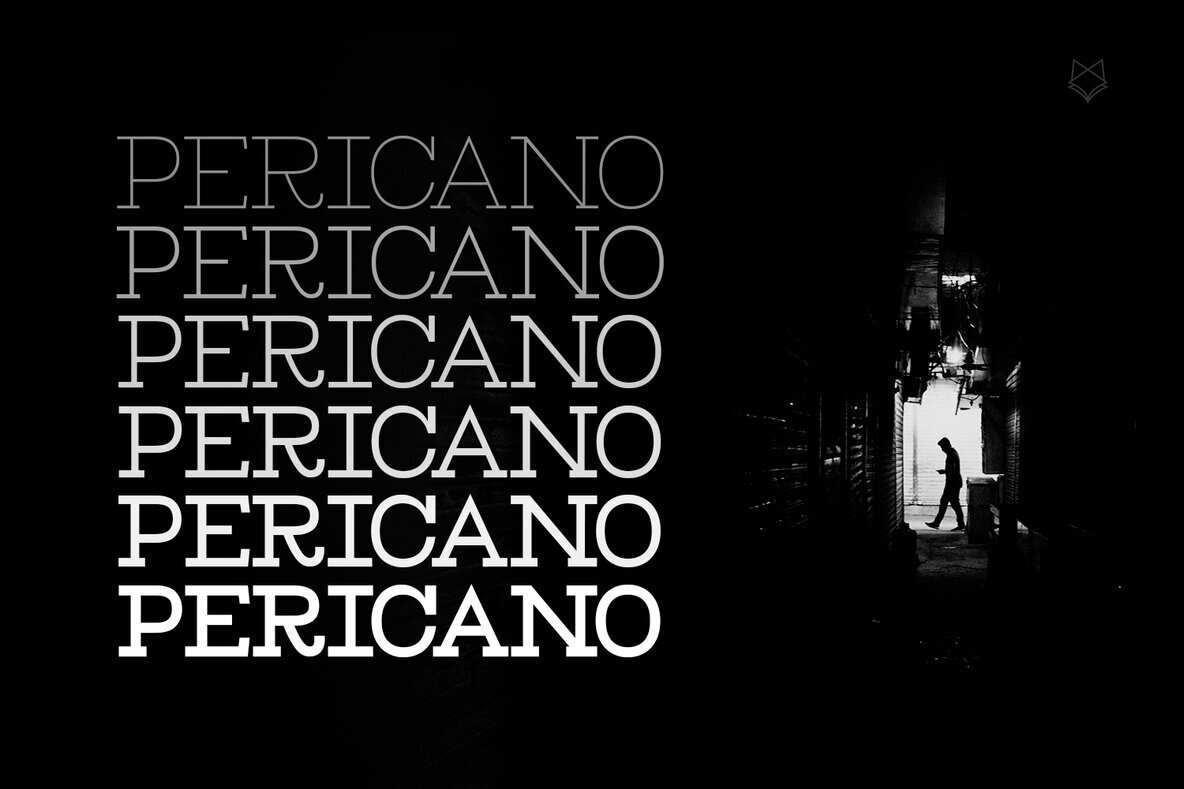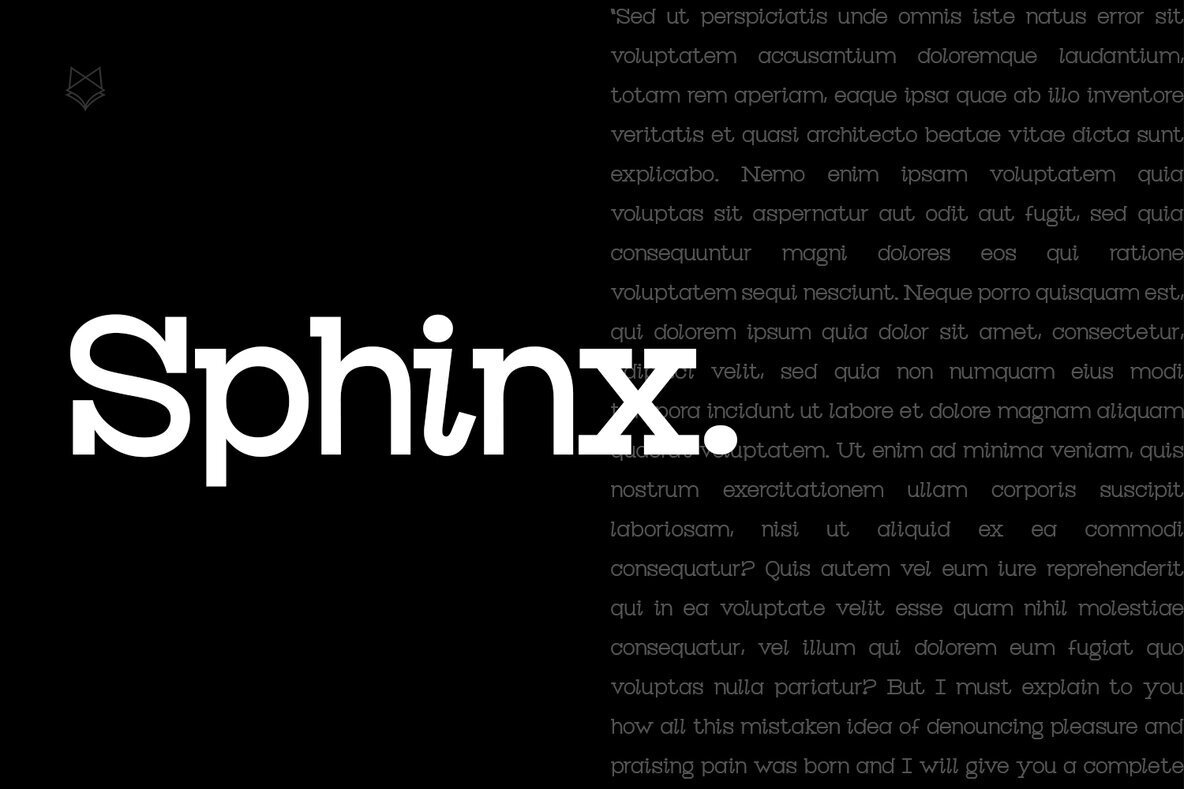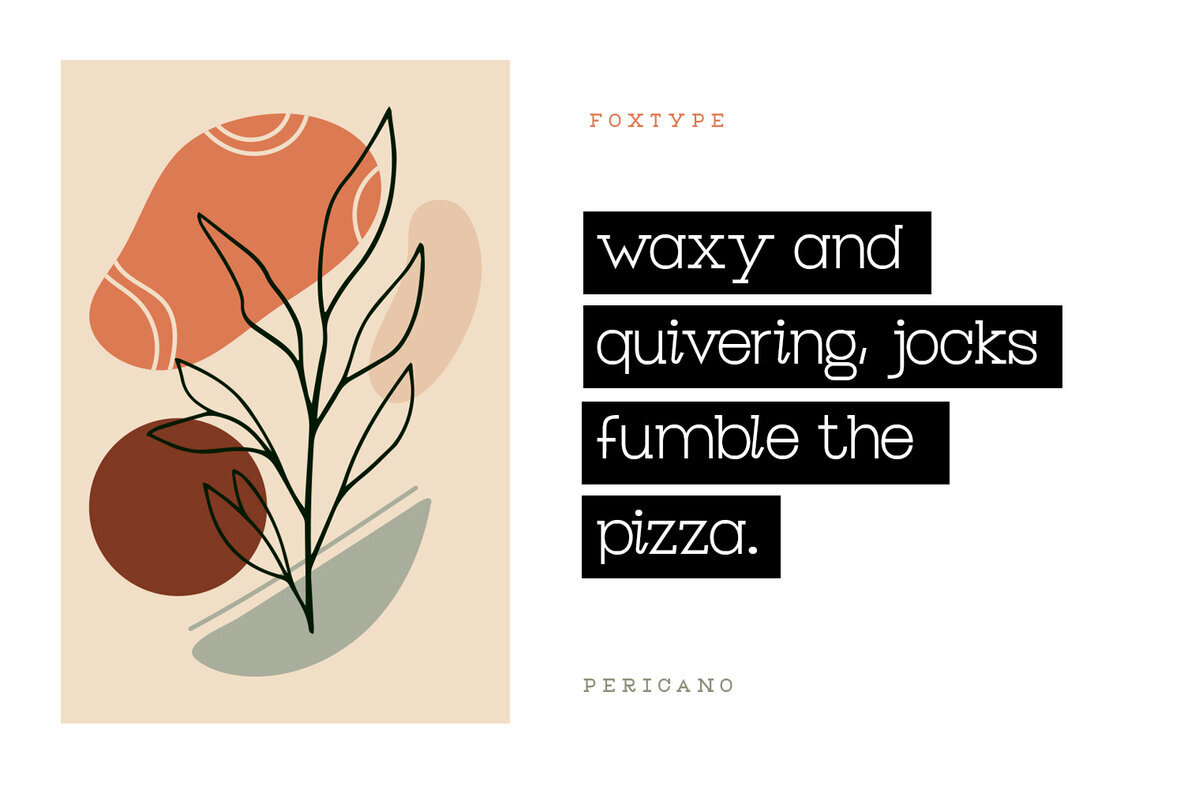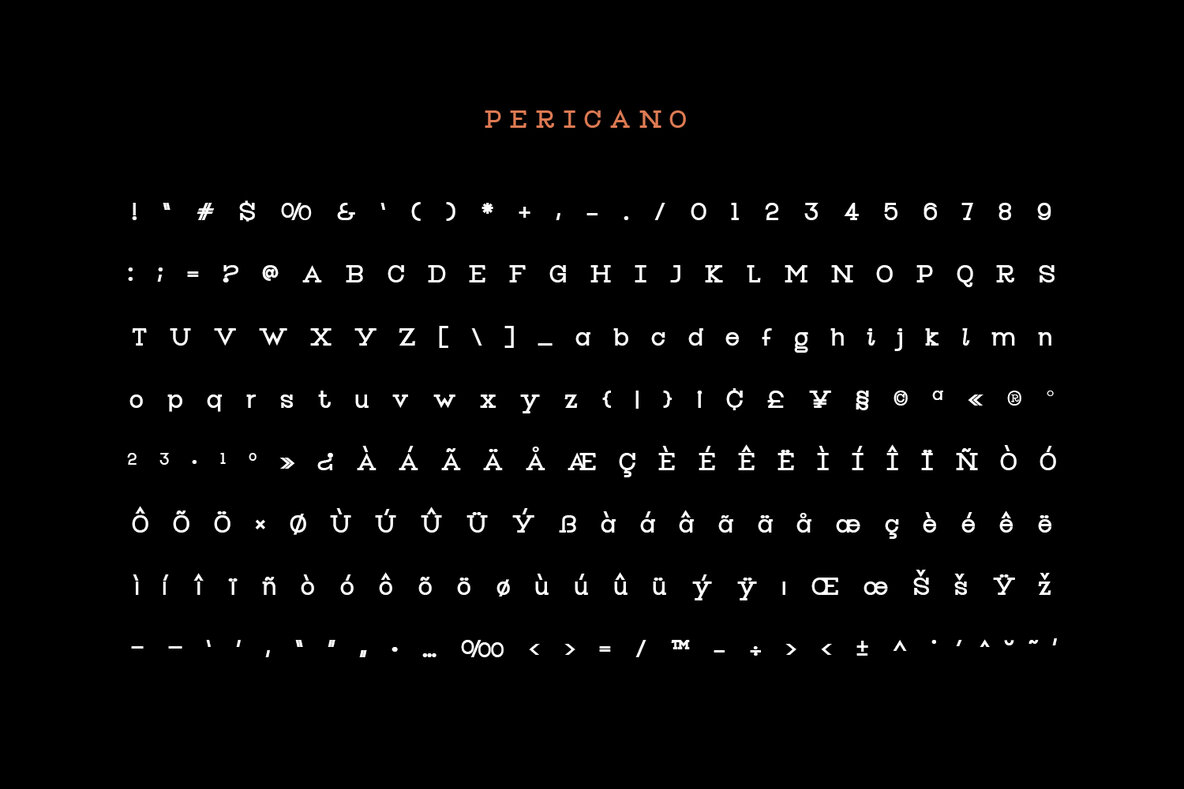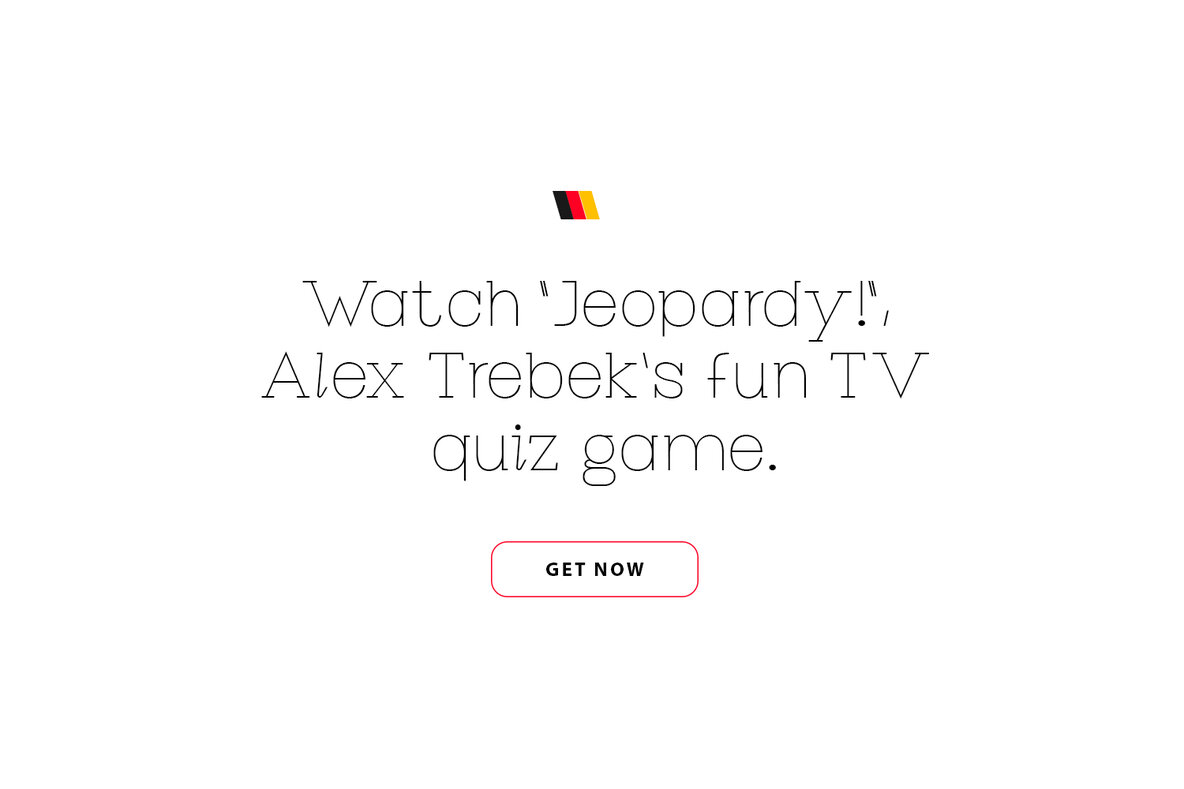
Pericano Display Font
Pericano Display presents a sophisticated slab serif design, perfectly suited for brands seeking a robust yet refined appearance. With its dependable style and contemporary flair, this typeface is an ideal choice for logos, editorial designs, and cinematic titles. Whether utilized in headlines, captions, or body text, its diverse weights provide versatility and adaptability across a range of projects.Pericano Display: Elegant Slab Serif Typeface
The sleek, minimalist design of Pericano Display allows it to make an impression without compromising on beauty or readability, offering both warmth and a touch of quirkiness tailored to various creative visions.